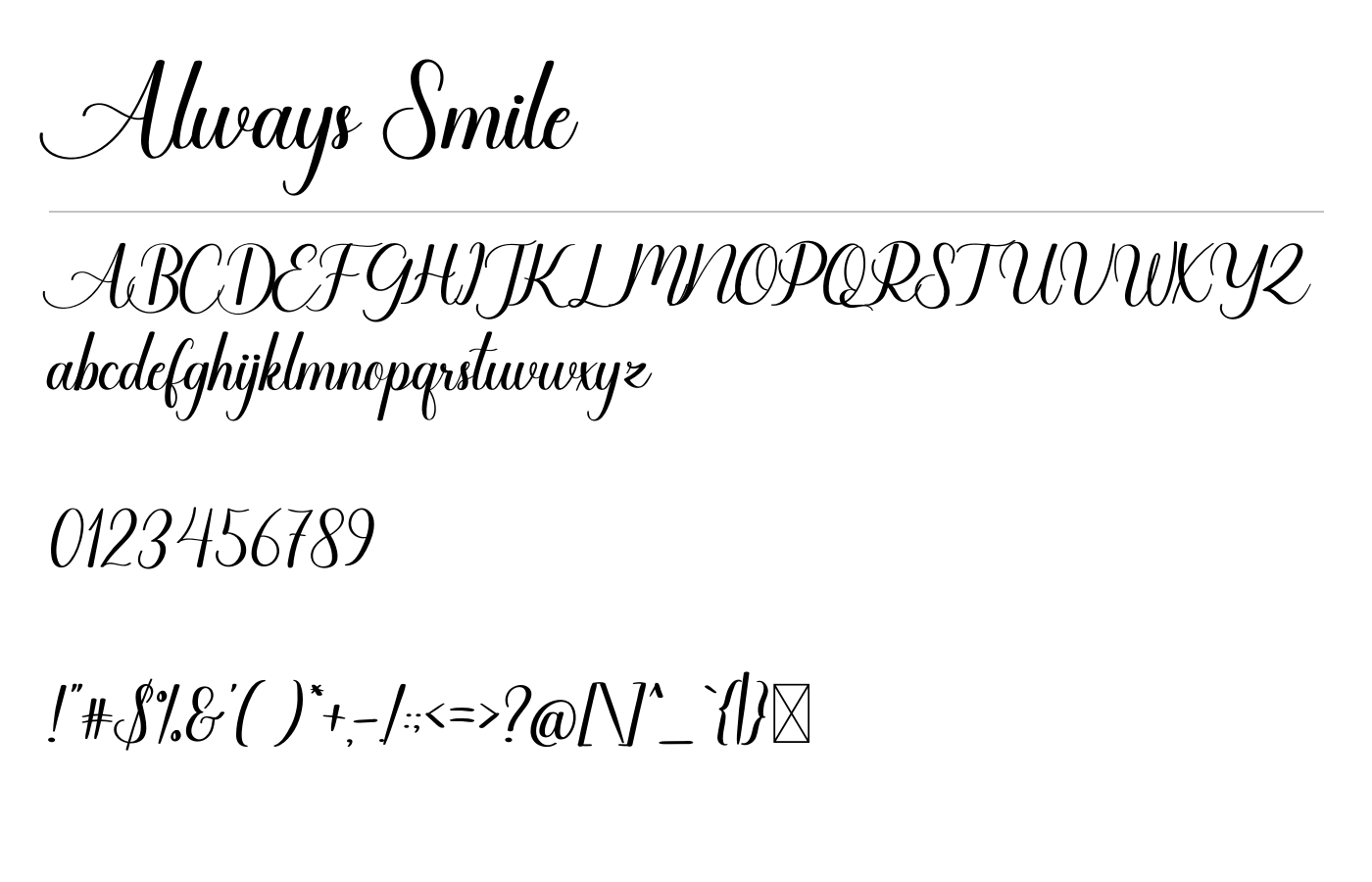
Always Smile is an elegant script font featuring delicate, flowing strokes with a graceful, handwritten style that feels both charming and sophisticated. Its slender letterforms with smooth curves and moderate contrast make it ideal for invitations, logos, and branding that seek a refined yet personal touch. This font works best in decorative settings where a warm, stylish, and friendly atmosphere is desired.
Always Smile Font
About Always Smile Font